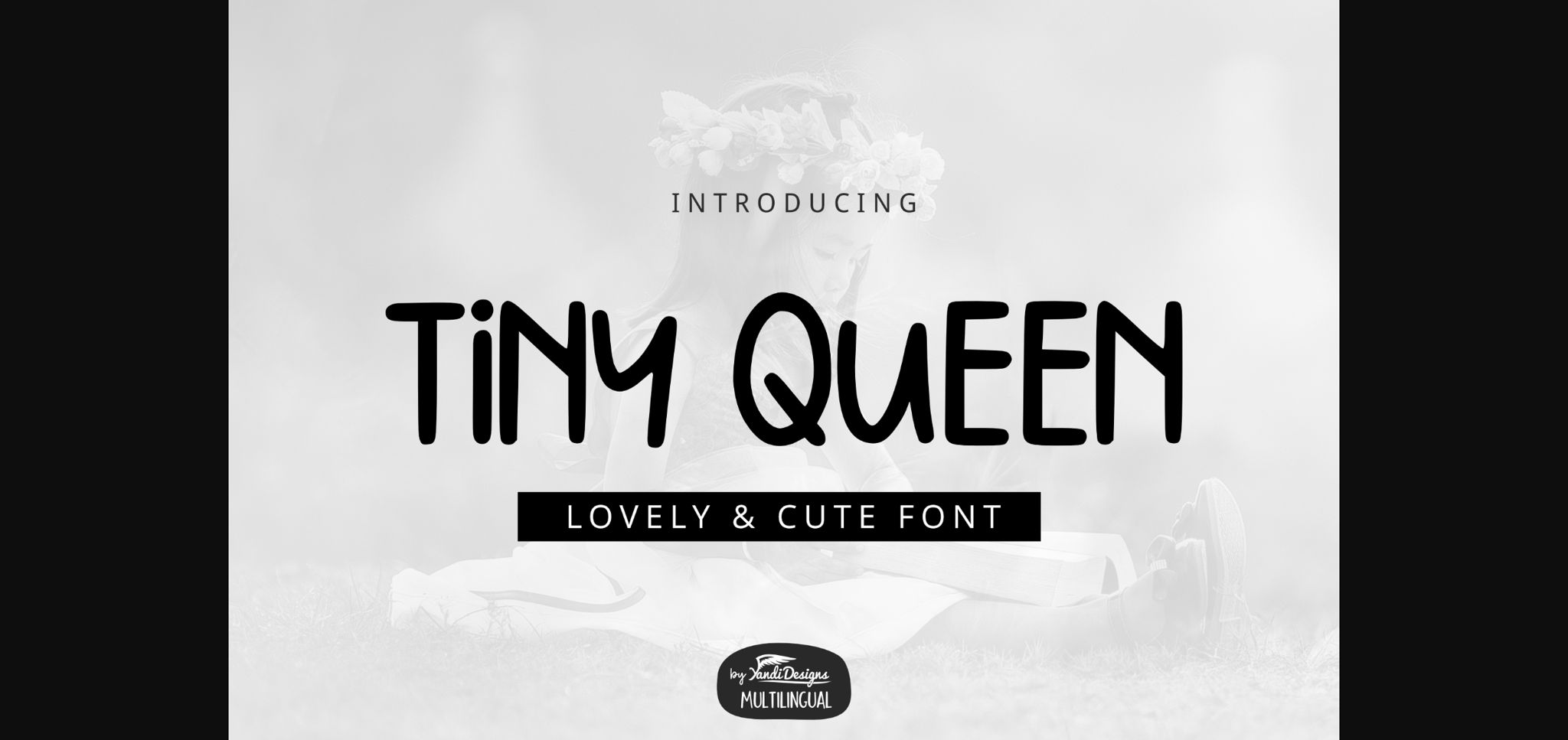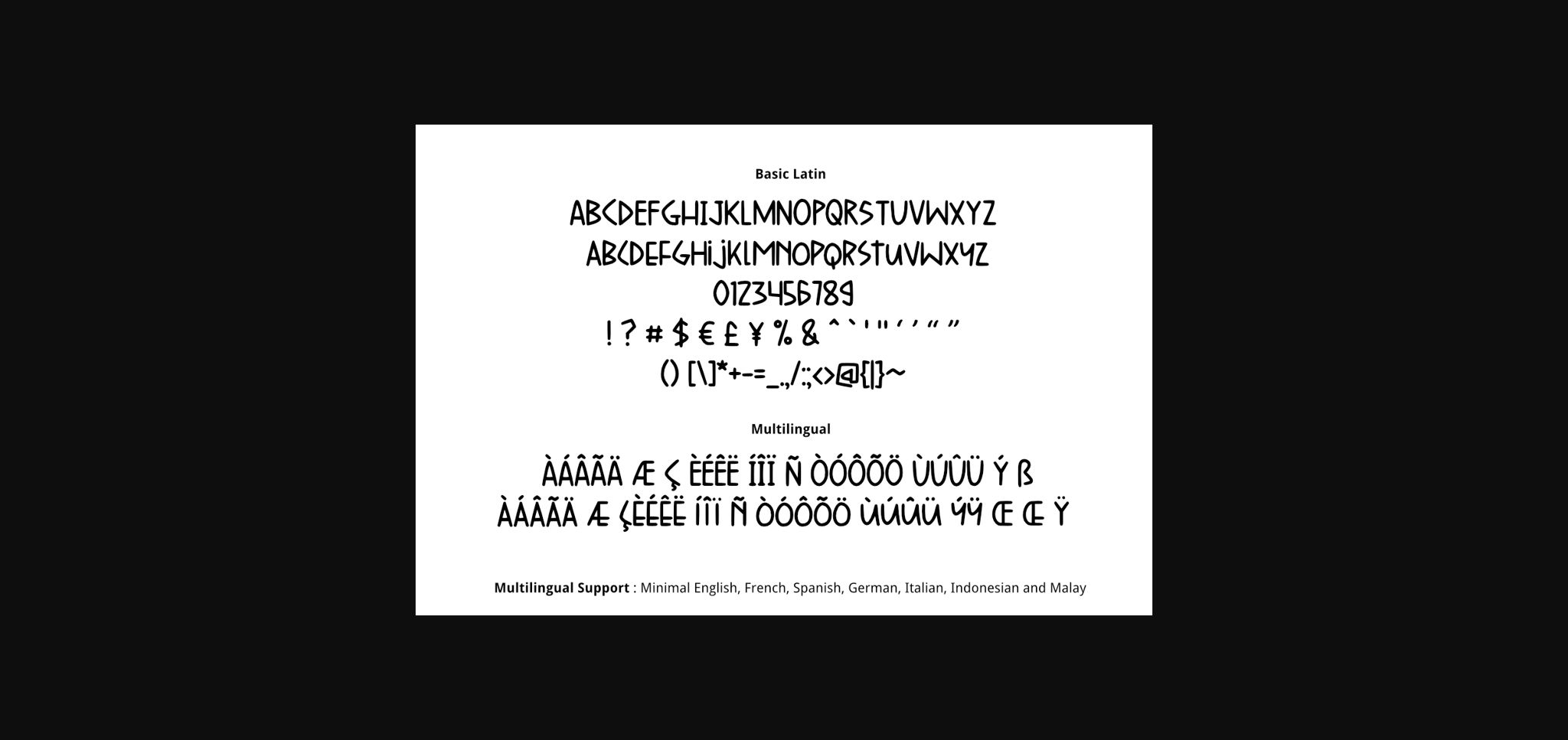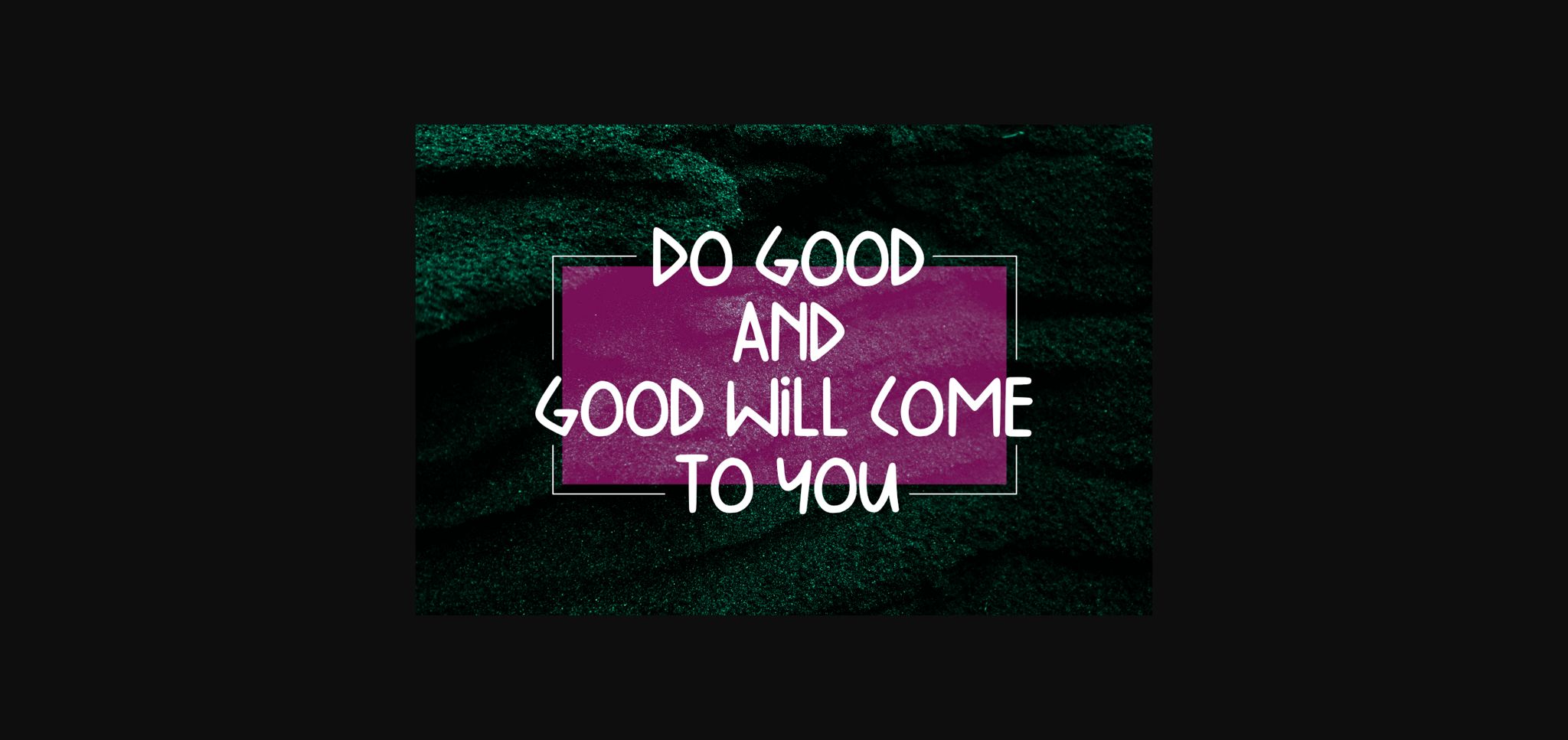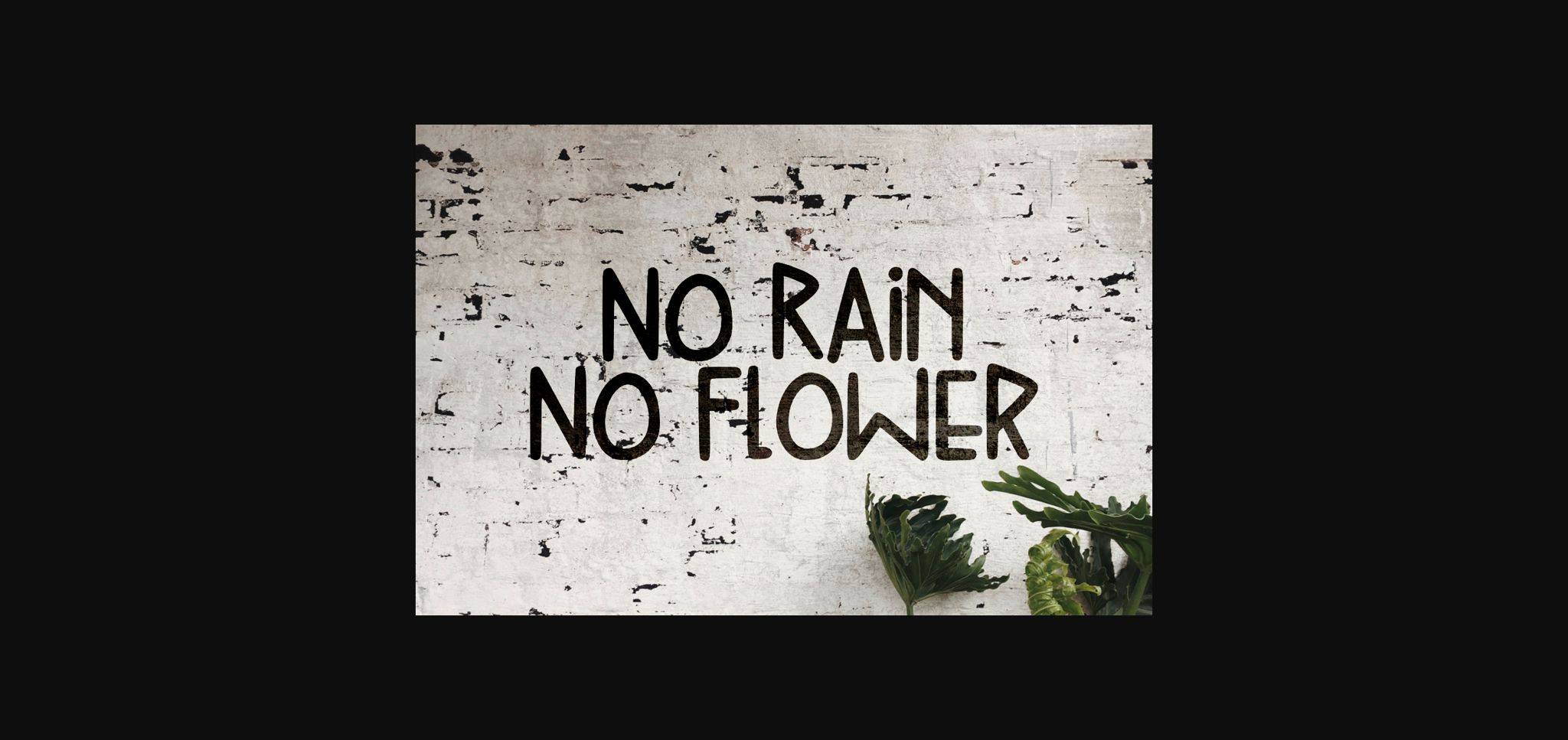
Tiny Queen is a whimsical and neat sans serif font. No matter the topic, this font will be an incredibly asset to your fonts’ library, as it has the potential to elevate any creation.